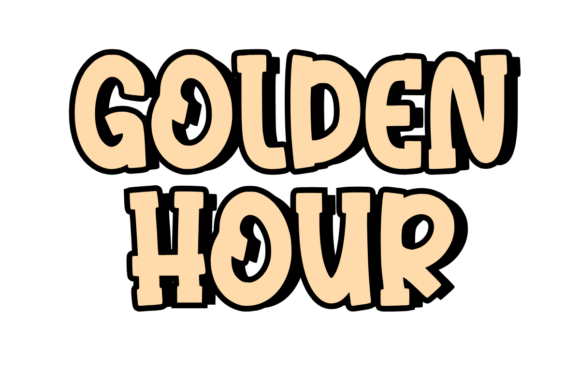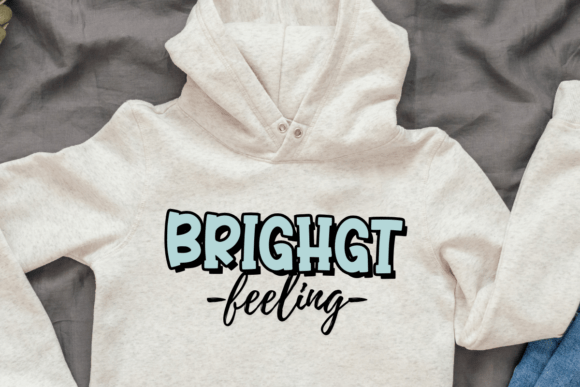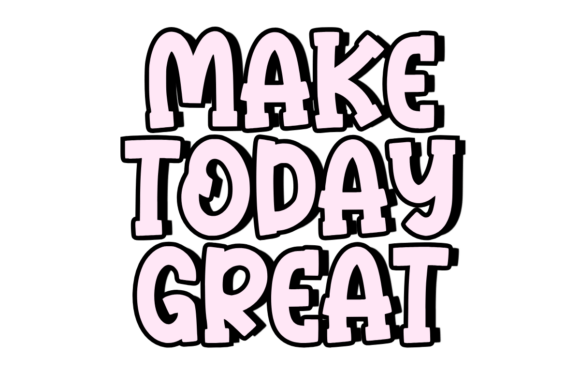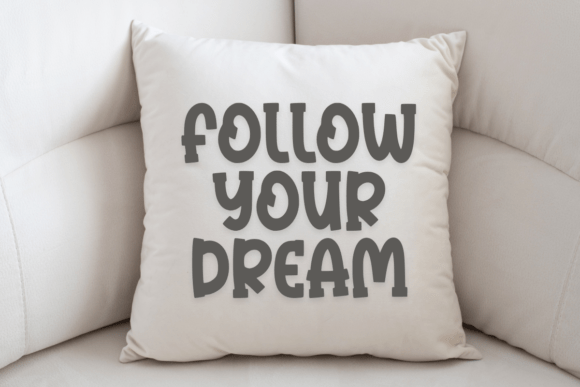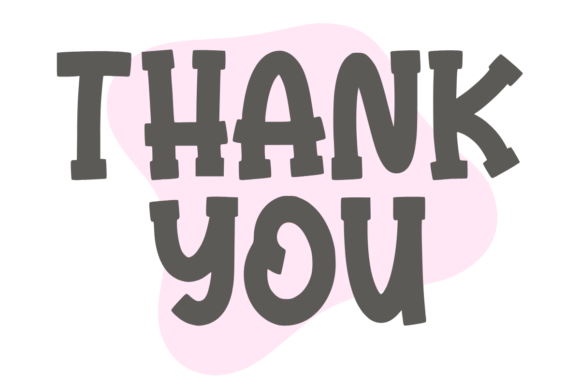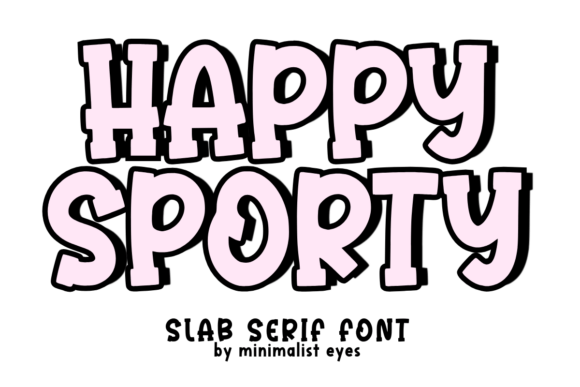
Introducing Happy Sporty Font: The Ultimate Playful Slab Serif Typeface
Are you looking for a font that combines playfulness with confidence and eye-catching design? Look no further than Happy Sporty, a bold slab serif font that’s perfect for headlines, logos, packaging, and sporty or casual branding. In this article, we’ll dive into the features and benefits of Happy Sporty, and explore how it can elevate your designs with its unique blend of fun and structure.
The Design of Happy Sporty
Happy Sporty is a thick and playful slab serif font that boasts chunky letterforms, clean edges, and balanced proportions. Its bold weight and subtle slab serifs give it a fun and approachable vibe, while also adding structure and versatility. The font’s modern yet nostalgic style makes it adaptable to both digital and print applications, ensuring that your designs look great across various platforms.
Perfect for Playful and Sporty Designs
Happy Sporty is perfectly suited for designs that require a mix of strength and cheerful personality. Its playful curves and bold weight make it ideal for children’s designs, social media graphics, or any project that needs to convey a lively and upbeat tone. Whether you’re creating a logo, packaging, or branding materials, Happy Sporty is sure to make a strong visual impact without sacrificing readability.
Key Features of Happy Sporty
- Bold and playful slab serif design: Happy Sporty combines chunky letterforms with subtle slab serifs, creating a unique and eye-catching look.
- Clean edges and balanced proportions: The font’s clean edges and balanced proportions ensure that it’s easy to read and looks great in various contexts.
- Modern yet nostalgic style: Happy Sporty’s design is both modern and nostalgic, making it adaptable to both digital and print applications.
- Versatile and flexible: The font is perfect for a wide range of designs, from children’s designs to sporty and casual branding.
Why Choose Happy Sporty?
So why choose Happy Sporty over other fonts? Here are just a few reasons:
- Unique and eye-catching design: Happy Sporty’s bold and playful design is sure to grab attention and make your designs stand out.
- Highly readable: Despite its bold weight, Happy Sporty is highly readable, making it perfect for headlines, logos, and other design elements.
- Versatile and flexible: The font can be used in a wide range of designs, from digital to print, and from children’s designs to sporty and casual branding.
How to Use Happy Sporty in Your Designs
Happy Sporty is easy to use in a variety of designs. Here are a few ideas to get you started:
- Headlines and titles: Use Happy Sporty to create bold and eye-catching headlines and titles that grab attention.
- Logos and branding: Happy Sporty is perfect for logos and branding materials, especially for sporty or casual brands.
- Packaging and labels: Use Happy Sporty to create fun and playful packaging and labels that stand out on store shelves.
- Social media graphics: Happy Sporty is great for social media graphics, especially for designs that require a playful and upbeat tone.
In conclusion, Happy Sporty is a versatile and playful slab serif font that’s perfect for designers and crafters looking to add a fun and confident touch to their designs. With its bold weight, clean edges, and balanced proportions, Happy Sporty is sure to make a strong visual impact without sacrificing readability. Whether you’re creating headlines, logos, packaging, or social media graphics, Happy Sporty is a great choice for any design project.